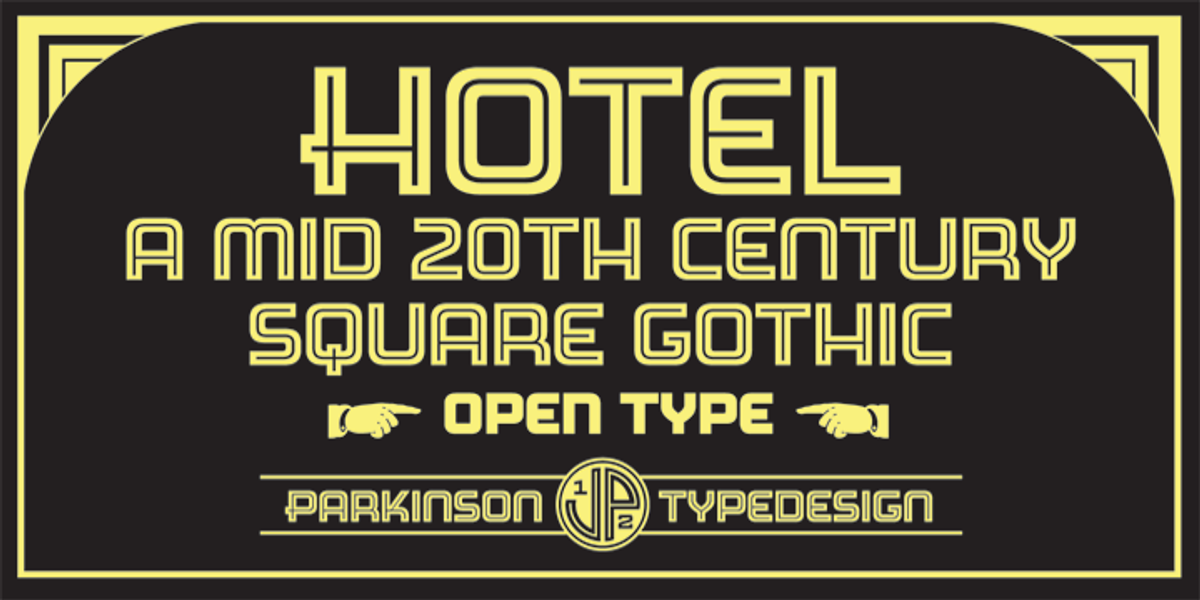
Hotel
Hotel and Hotel Black are inspired by the 'gaspipe' lettering style popular in mid-20th century signage. This distinctive style is characterized by its bold, square forms and inline strokes. Designed by Jim Parkinson in 2012, the font evokes a vintage aesthetic reminiscent of Oakland, California architecture.